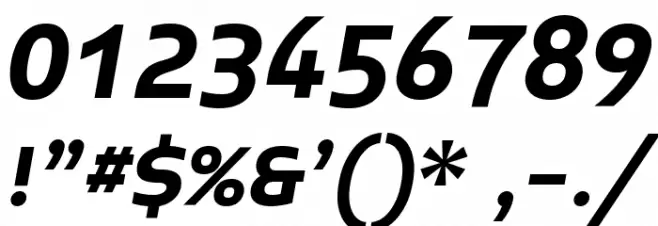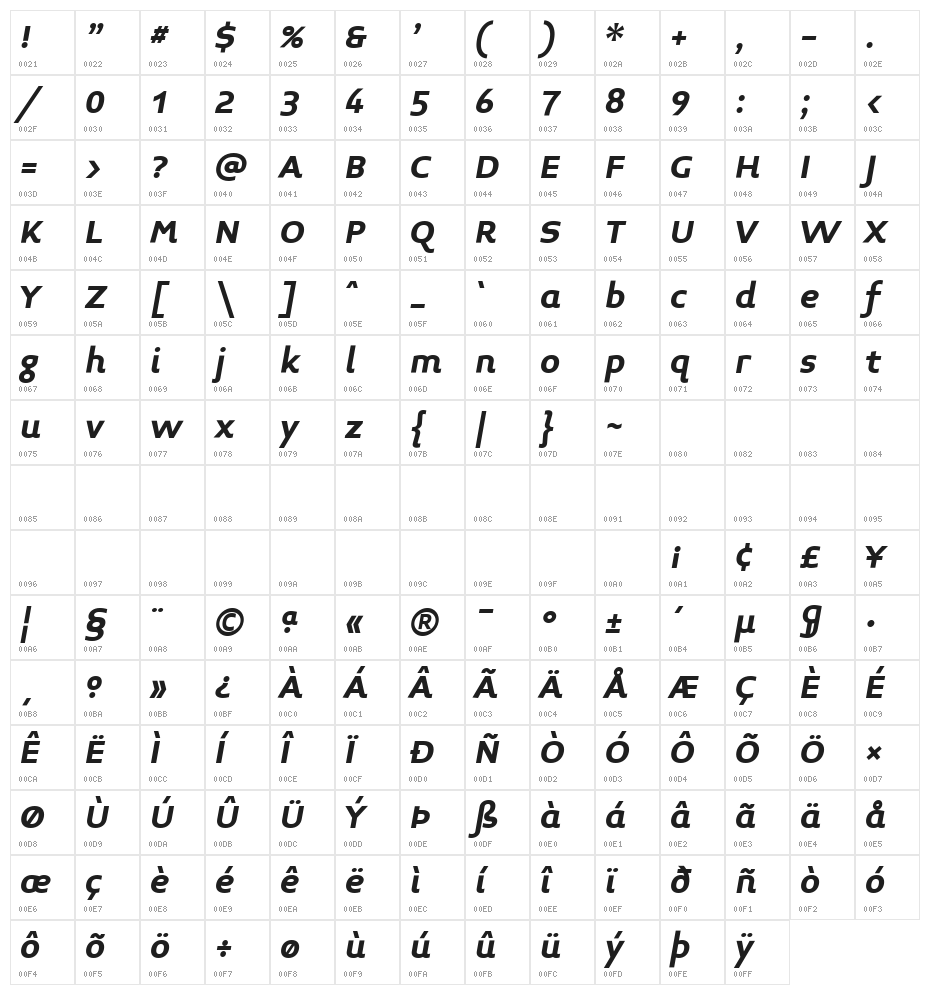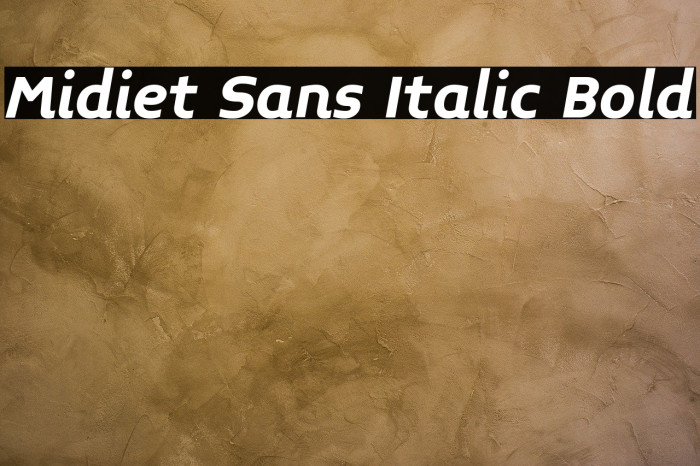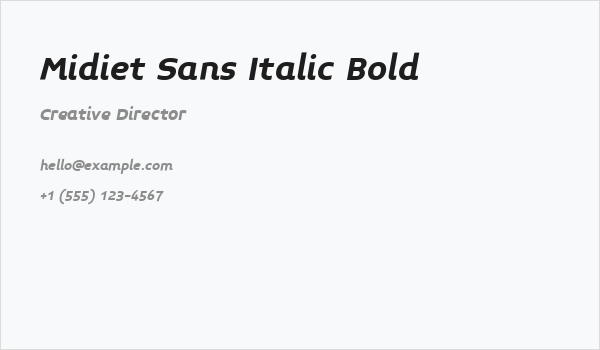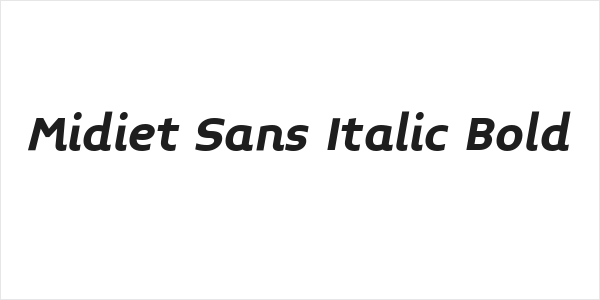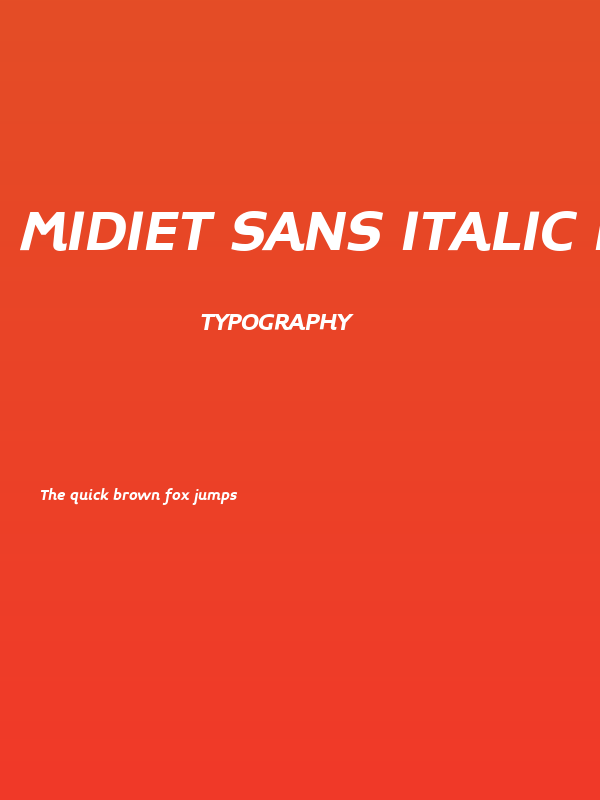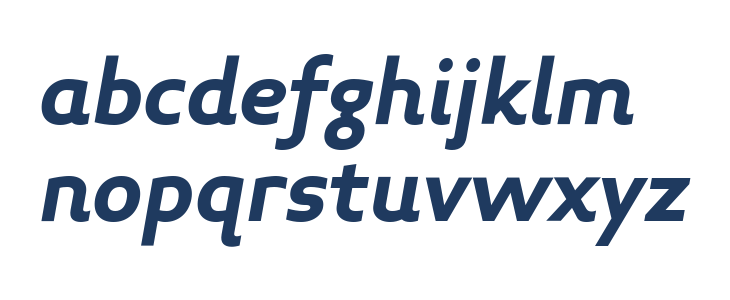
Midiet Sans Italic Bold Font
Midiet Sans Italic Bold Description
This font features a modern sans-serif style with a bold and italicized appearance. The characters are slightly slanted, giving a dynamic and forward-moving feel. The strokes are consistent and smooth, providing a clean and professional look. The uppercase and lowercase letters maintain a uniform height, contributing to a cohesive and balanced design. The numerals are clear and easy to read, while the special characters are distinct and well-integrated. Overall, this font exudes a contemporary and versatile aesthetic, suitable for various design applications.
| Use Case | Headlines, Logos, Advertising |
| Proposed Projects | Ideal for branding, advertising, headlines, and digital media projects that require a bold and modern touch. |